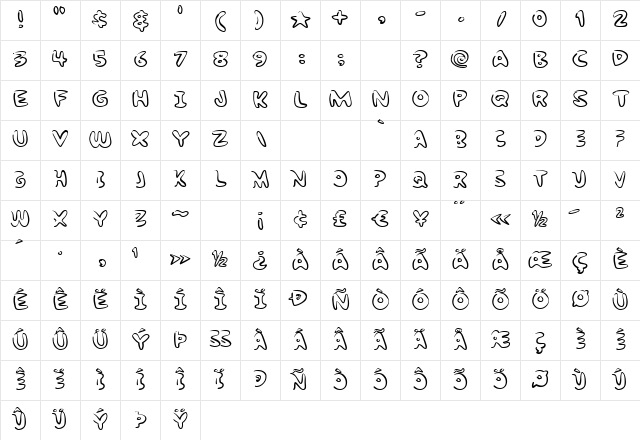
Bubble Gum RockA Regular Free Font
Bubble Gum RockA Regular
Design Context for Bubble Gum RockA
Bubble Gum RockA has an approachable, lighthearted character - its loose, expressive forms are well-suited to children's content, casual branding, and fun-first design.
Font Pairing: Pairs well with a rounded or humanist sans for body copy, maintaining the friendly tone without relying on Bubble Gum RockA to carry extended reading.
Pro Tip: Use Bubble Gum RockA at larger display sizes where its expressive character can land. Pair with a clean, simple sans for body copy to maintain readability.